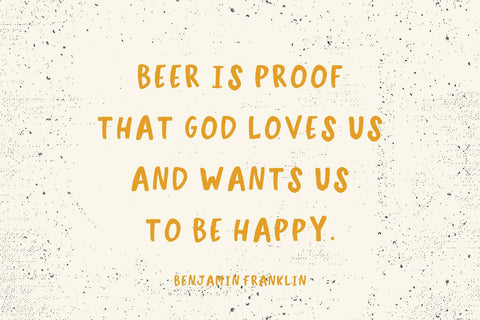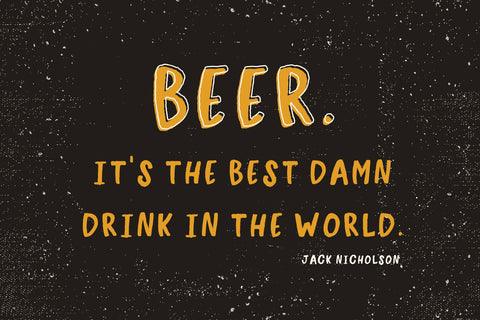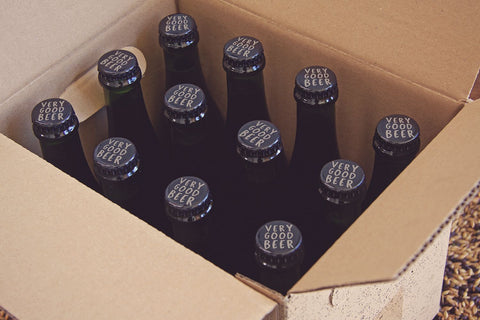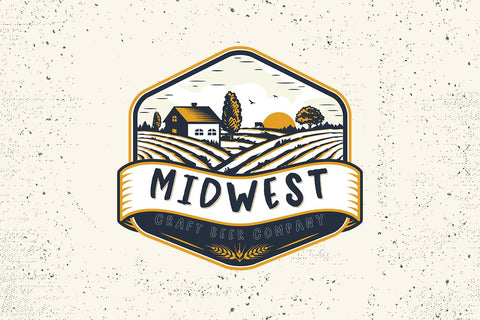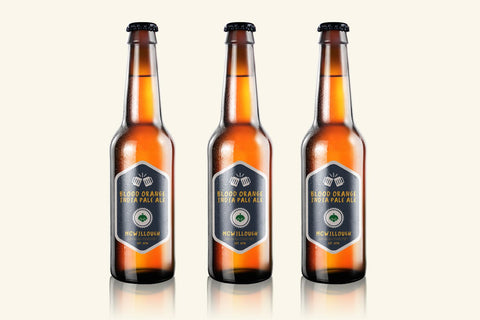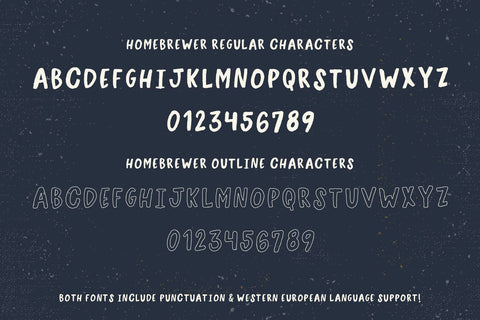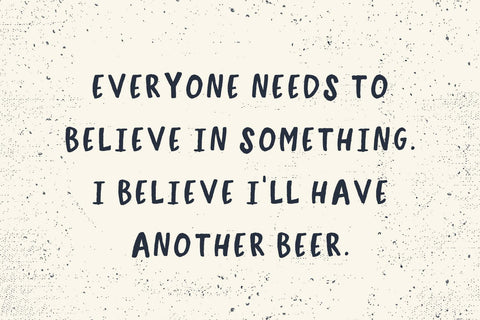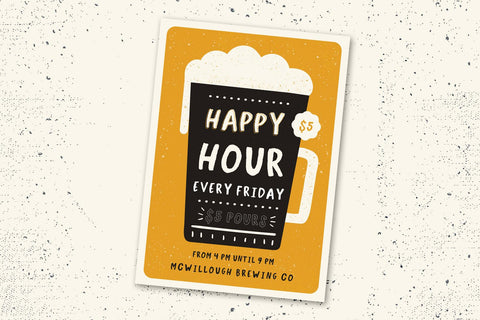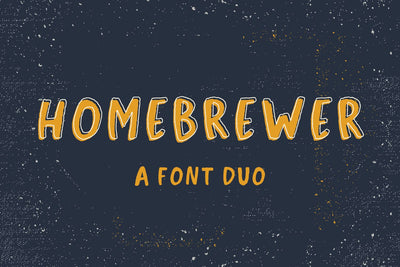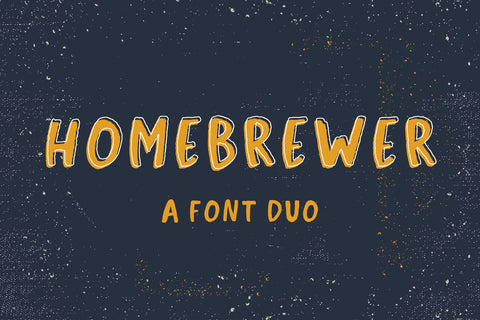
Homebrewer Sans and Outline Font Duo
The Homebrewer Font Duo is an excellent fit for:
– crafting projects that need a handlettered or masculine feel
– big, bold headings
– quote graphics
– and obviously, beer 🙂
Homebrewer Sans + Outline includes:
– full uppercase characters (all caps font)
– numbers + punctuation
– Western European Language Support